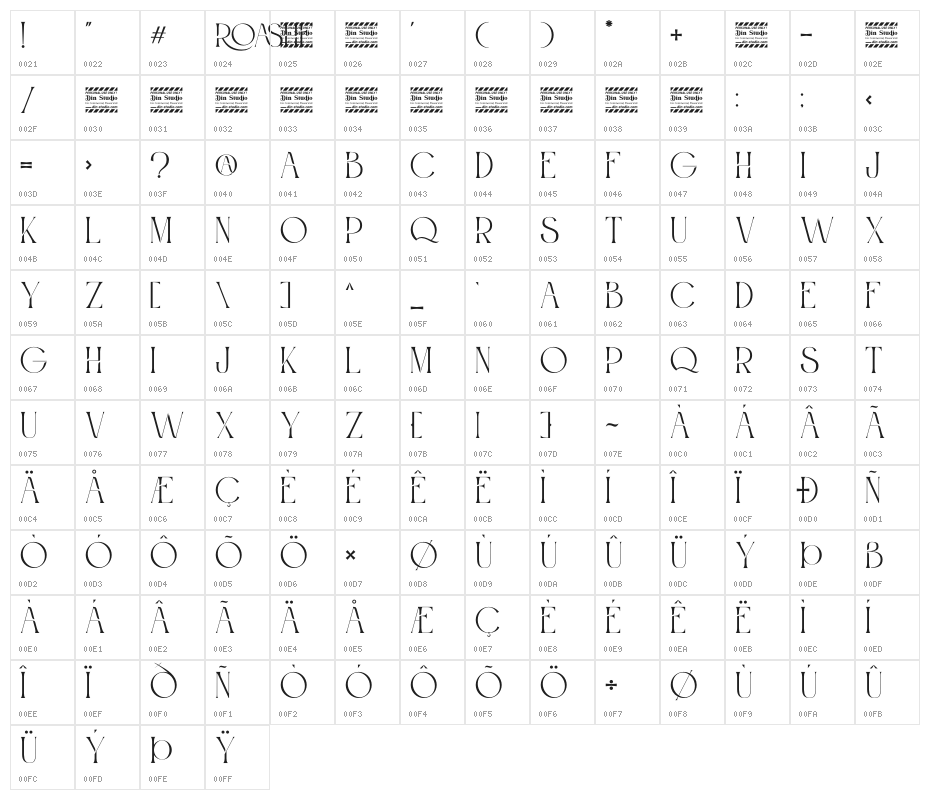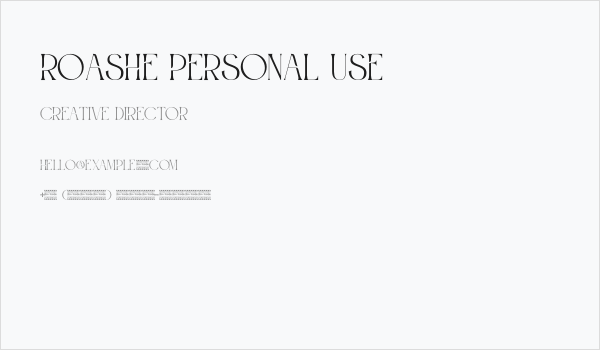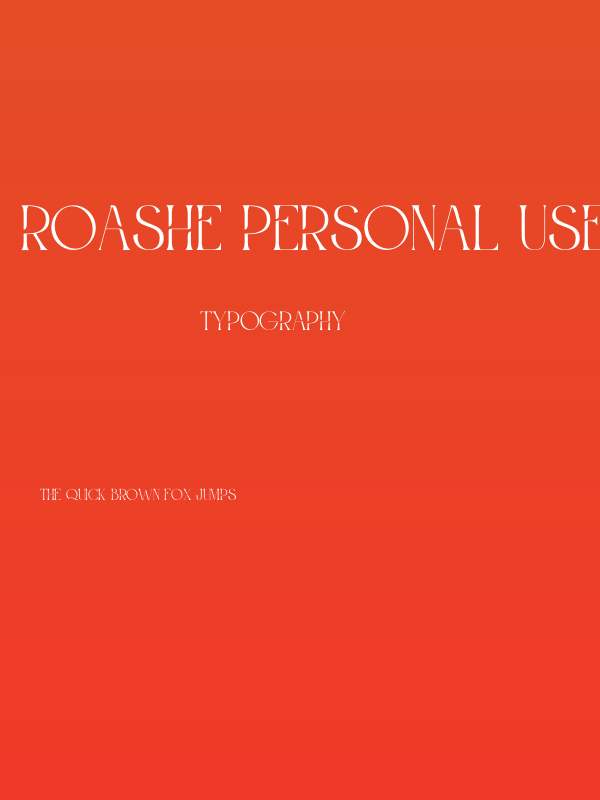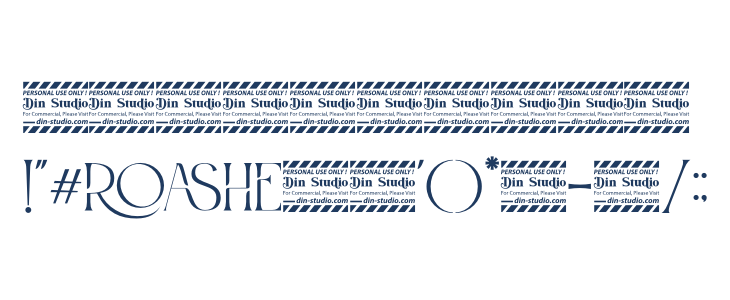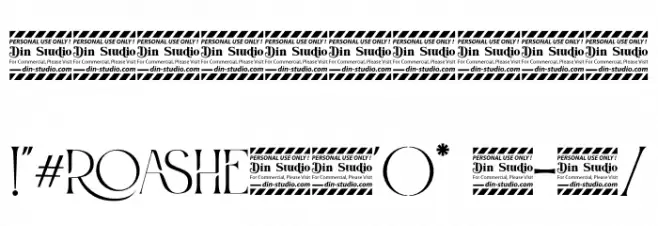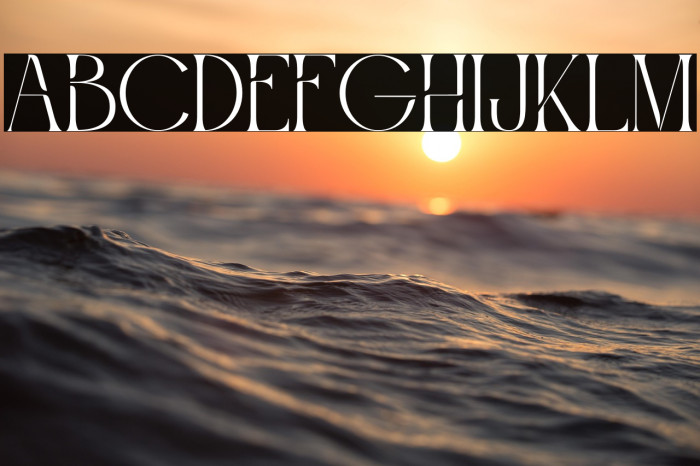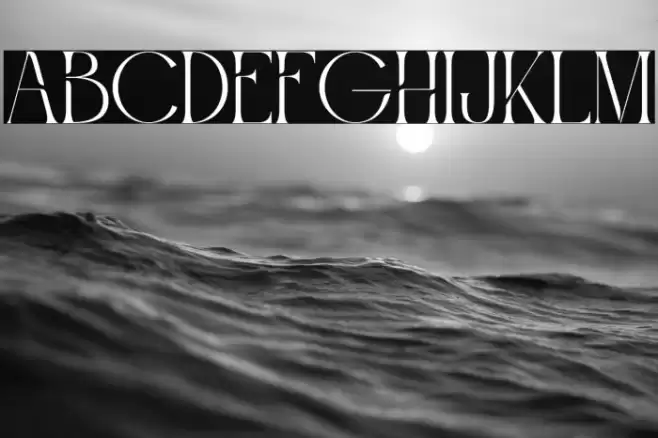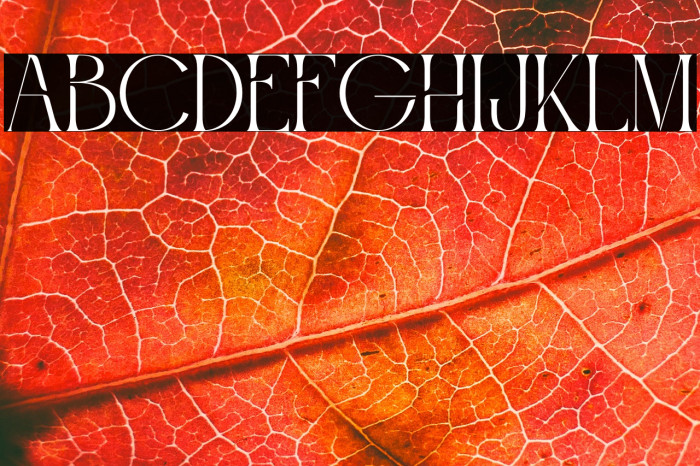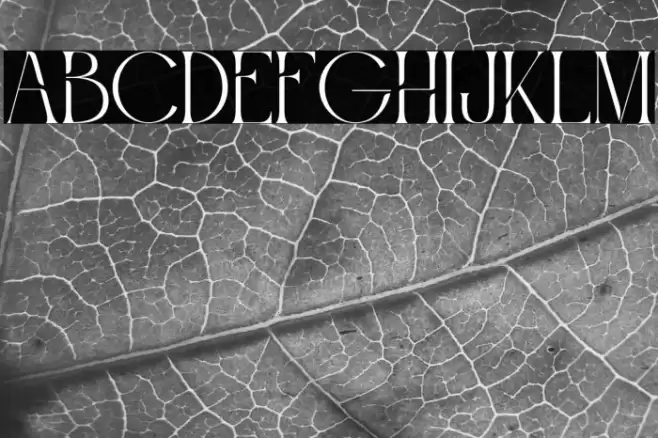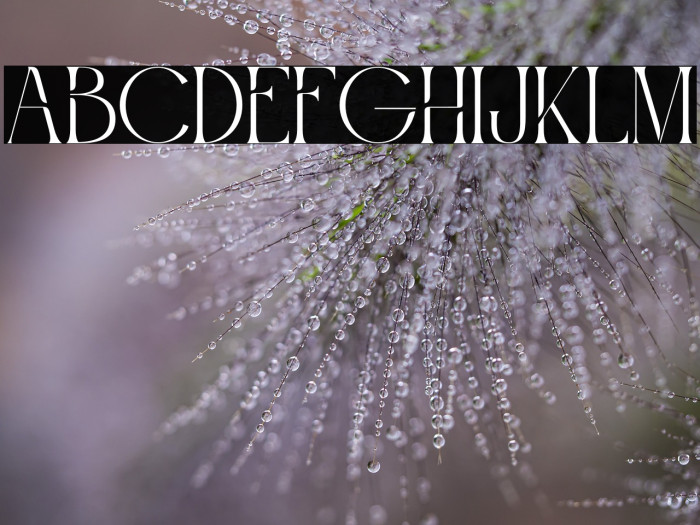
Roashe Personal Use Font
Roashe Personal Use Description
This font features a modern and elegant design with high contrast between thick and thin strokes. The characters have a distinct, stylish flair, with sharp serifs and a sophisticated appearance. The uppercase letters are particularly striking, with unique cuts and angles that give them a contemporary feel. The lowercase letters maintain this elegance, offering a cohesive look across all text. The numerals and special characters are designed to complement the overall aesthetic, making this font suitable for a variety of creative applications.
| Use Case | Headlines, Logos, Editorial design |
| Proposed Projects | Ideal for luxury branding, fashion magazines, editorial design, and high-end product packaging. |